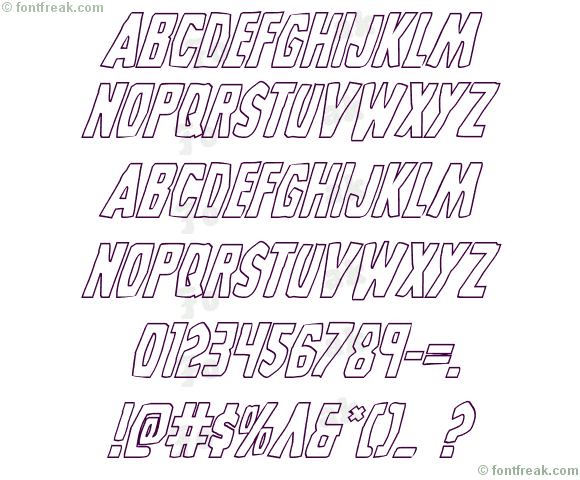
Grim Ghost College Italic
About Grim Ghost College Italic
Grim Ghost College Italic is a striking display font designed by Daniel Zadorozny, categorized as a decorative typeface. Its unique style features bold, condensed letterforms with an italic inclination that gives it a dynamic, energetic appearance. The font showcases a pronounced stroke weight with a slight contrast, which enhances its visibility and impact. The outlines are clean yet bold, making it an eye-catching choice for various design projects. The spacing is well-balanced, ensuring legibility while maintaining an overall cohesive look.
This font is particularly well-suited for a range of creative applications. It can be effectively used for movie posters, where its dramatic flair can capture attention and evoke emotions. Additionally, it works beautifully for college-themed events or merchandise, lending a spirited feel that resonates with student life. Restaurant menus can also benefit from its bold presence, attracting diners with a modern yet inviting aesthetic. Moreover, graphic designers will find it useful for branding projects that require a distinctive touch, making logos or promotional materials stand out.
What sets Grim Ghost College Italic apart is its ability to blend playful energy with a strong visual impact. This font embodies a unique character that can elevate any project, making it a must-have for those who want to make a lasting impression. With Grim Ghost College Italic font free download, you can infuse your designs with a lively spirit that truly resonates.